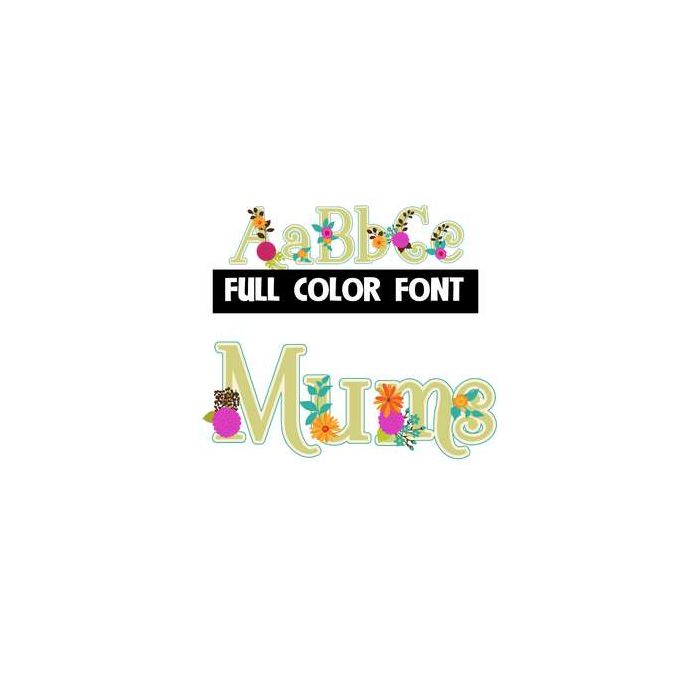
This full-color font features chrysanthemum flowers throughout. This font works best for titles, displays, posters and more. Please note color fonts will show as black in non compatible programs. This font type is compatible with Silhouette Studio.